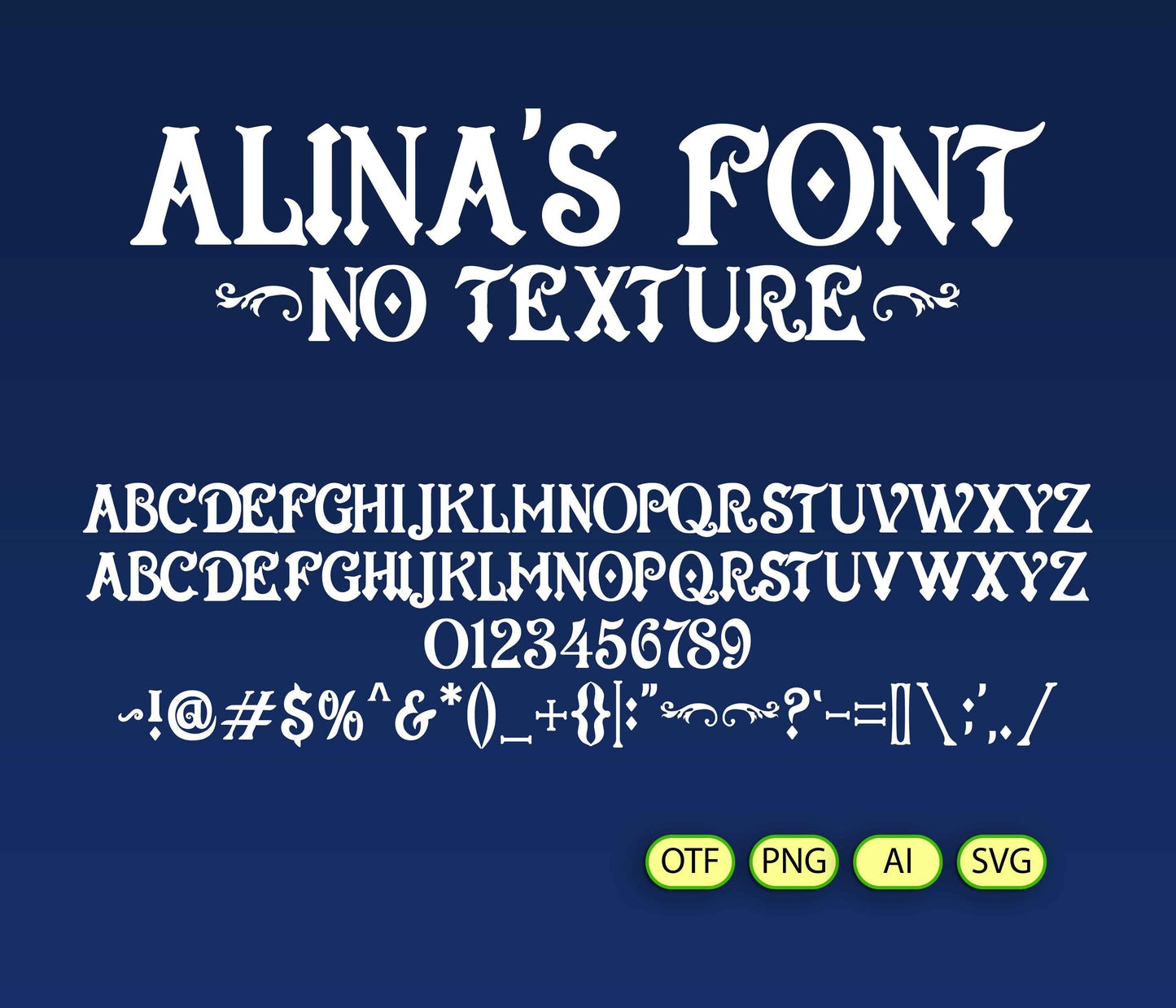
Nightshade Elegance Anime Font
Embrace the Elegance and Mystery with the Nightshade Elegance Font
Delve into the dark and romantic world of Nightshade Elegance with our specially designed font, inspired by the stylish and gothic themes of a popular manga and anime series. Ideal for fans, creators, and designers looking to capture the essence of Nightshade Elegance’s enigmatic allure, this font ensures your projects resonate with the grace and tension that define the series.
Drawing inspiration from Nightshade Elegance's captivating visual style, this font features sleek, sharp contours mixed with elegant curves, reflecting the series' blend of danger and beauty. It’s perfect for a variety of applications:
- Anime Conventions and Events: Create stunning promotional materials and signage.
- Fan Merchandise: Design t-shirts, posters, and accessories that appeal to the series' avid fans.
- Digital Content: Enhance your websites, fan pages, and online articles with eye-catching headers and quotes.
- Personal Projects: Add a touch of gothic elegance to personalized crafts, invitations, or scrapbooks.
- Graphic Novels and Comics: Use for dialogue or narration in similar themed graphic storytelling.
Our Nightshade Elegance font not only pays tribute to the iconic series but also empowers you to infuse your designs with its mysterious and romantic atmosphere. Whether you’re engaging with fans through crafted merchandise, enhancing themed events, or bringing a gothic touch to personal projects, this font allows you to articulate stories with visual impact and narrative depth. Ready to channel the intrigue of Nightshade Elegance into your creative endeavors? This font is your key to unlocking a world of artistic expression.
Vampire Knight Font